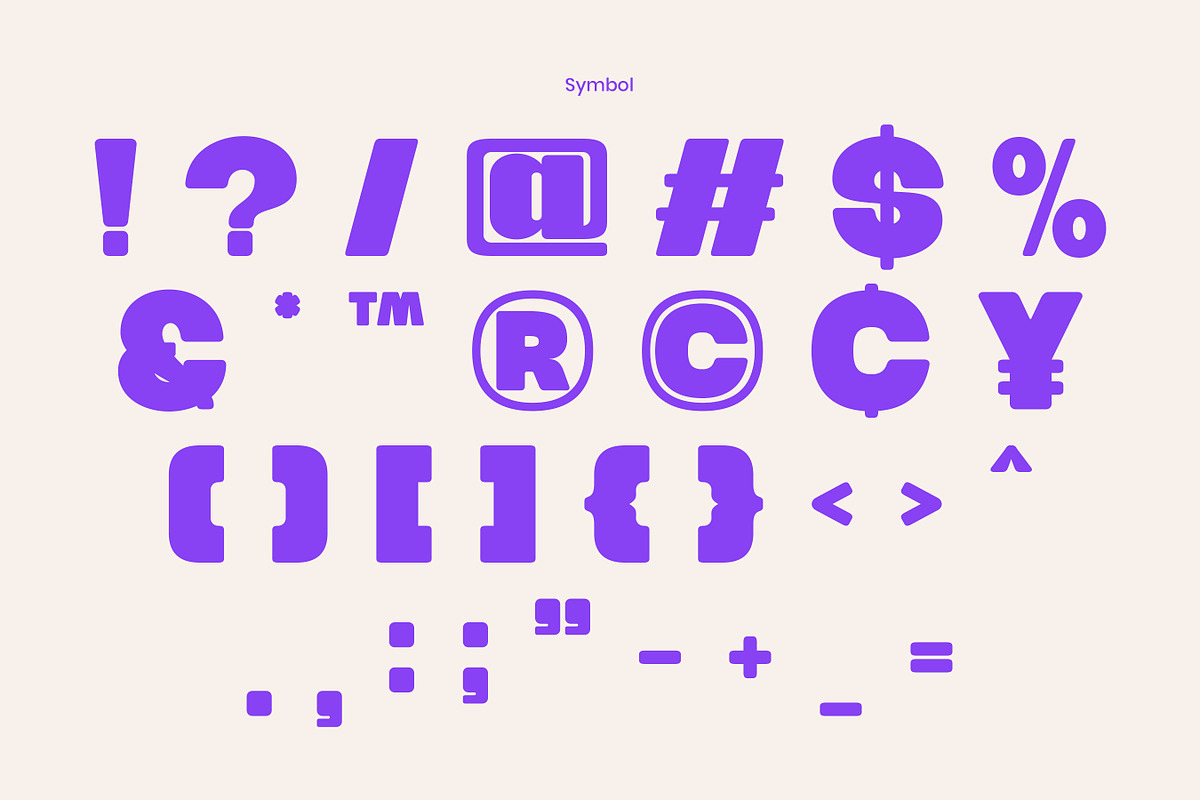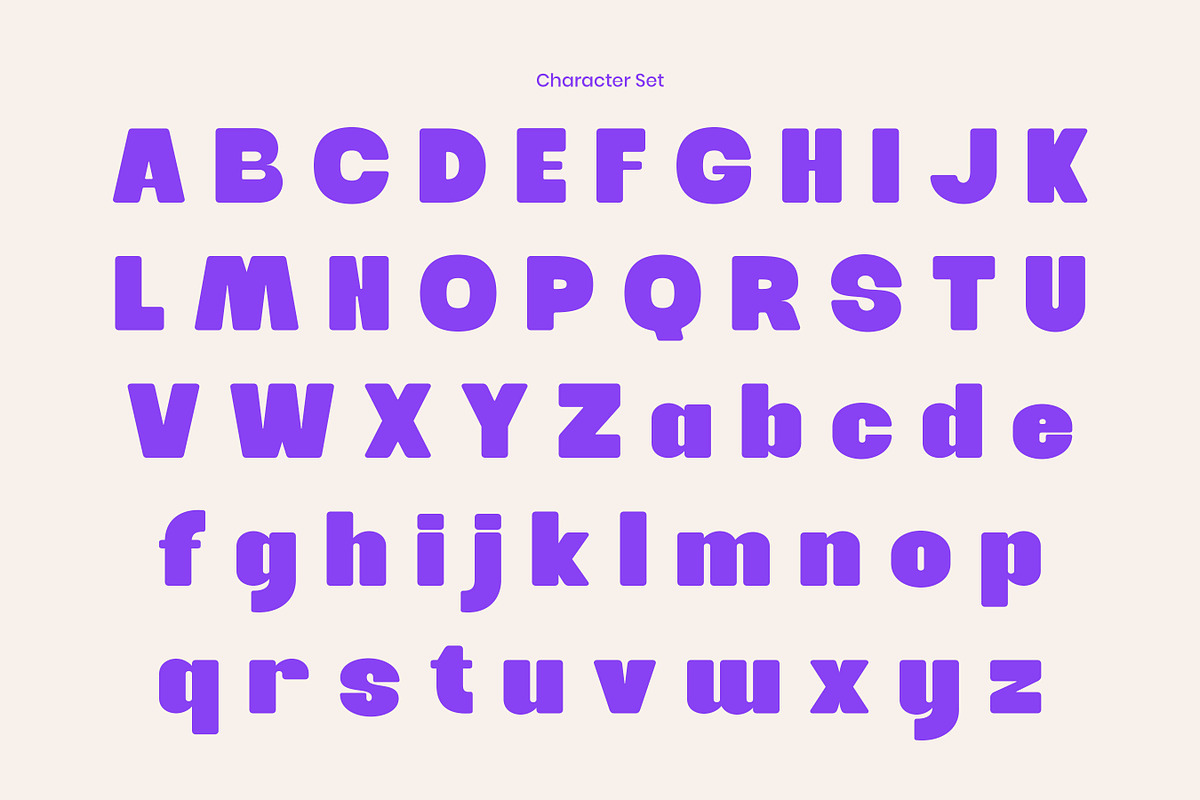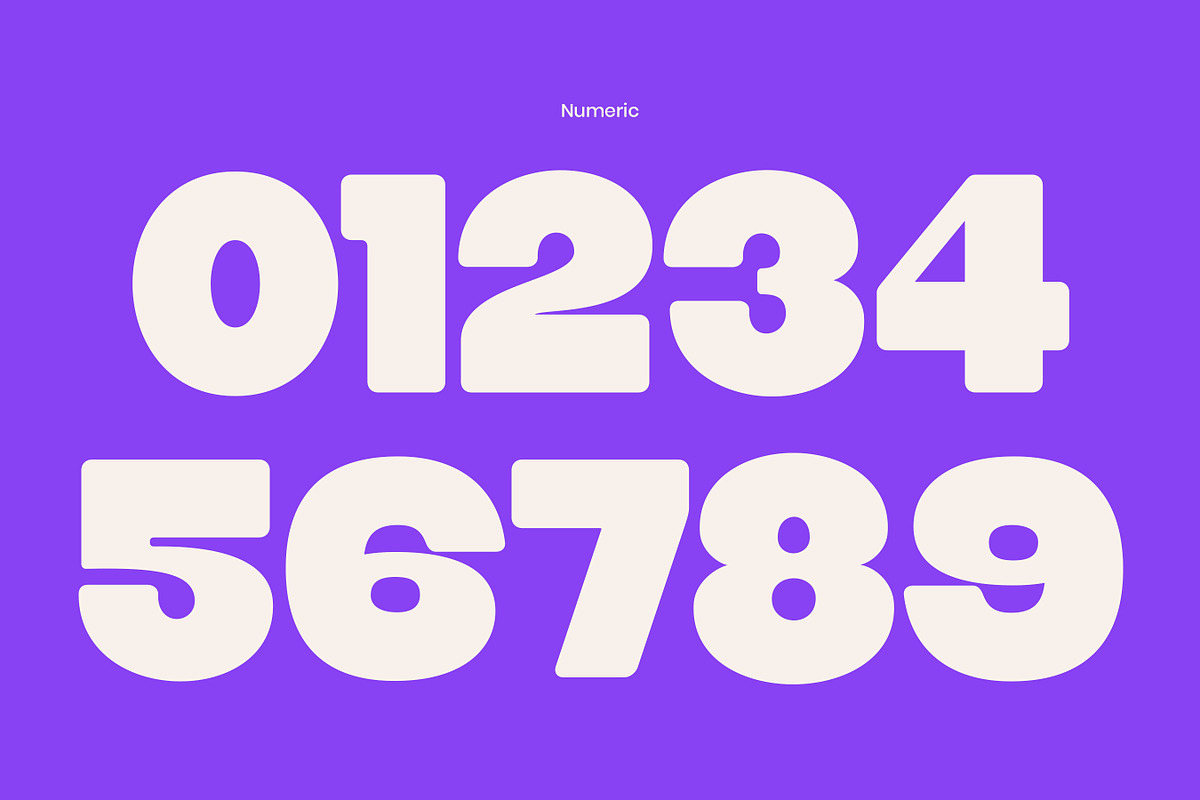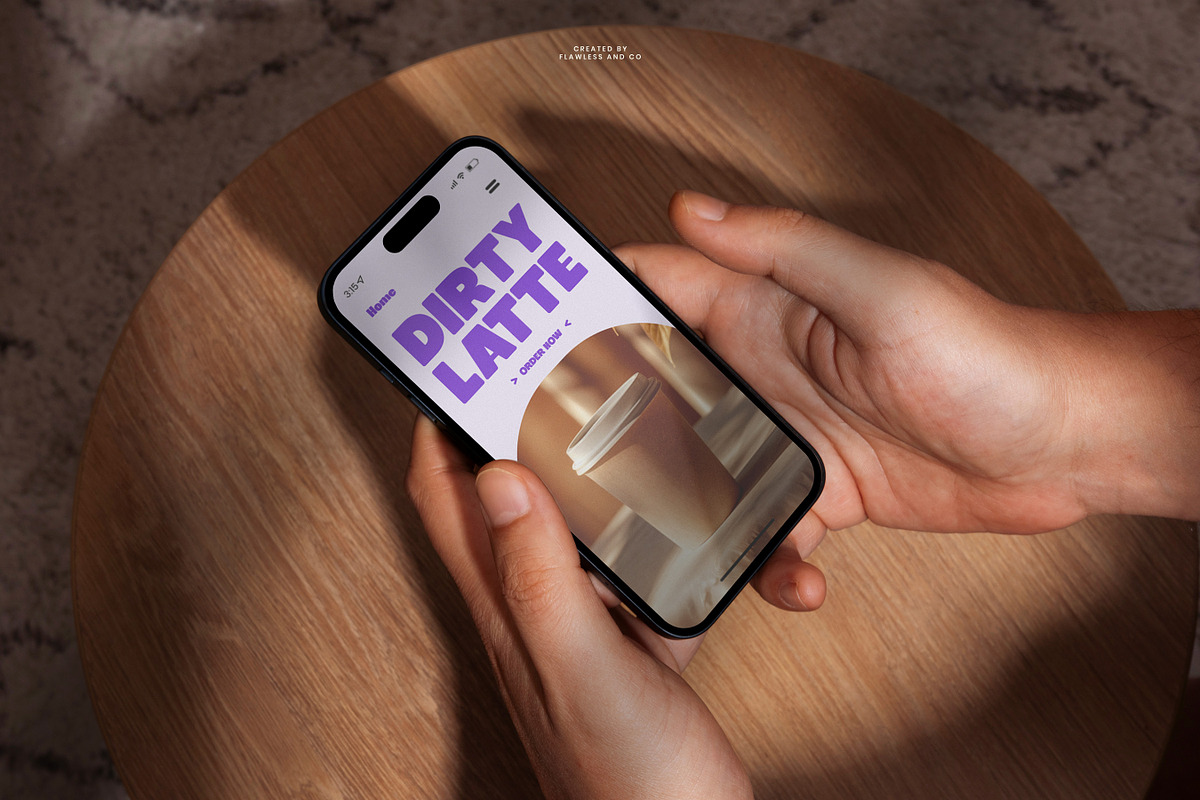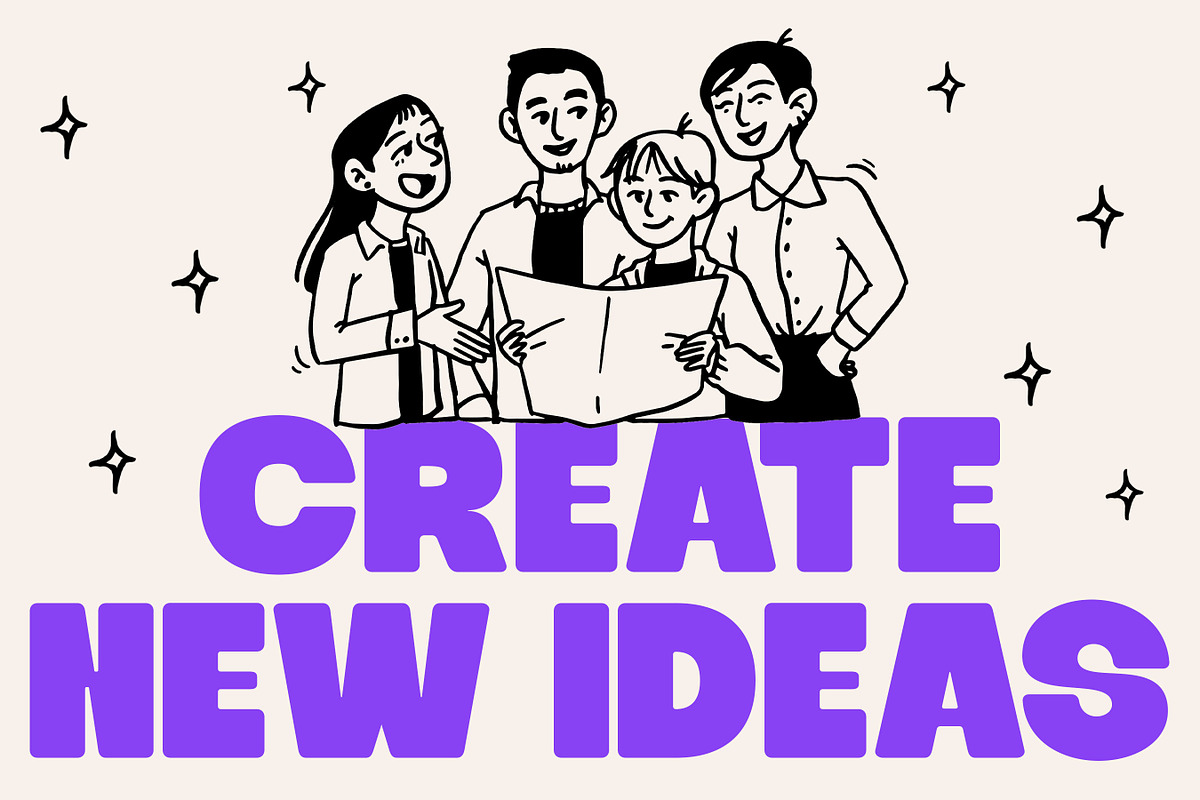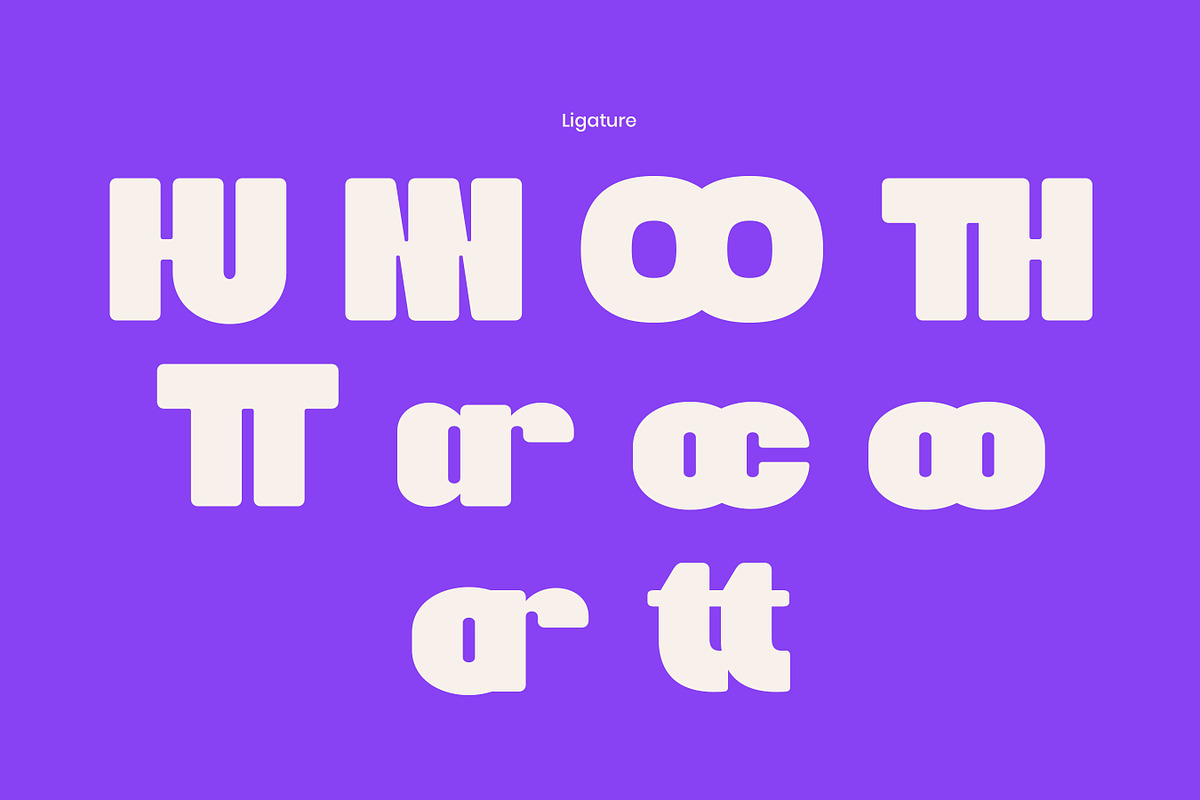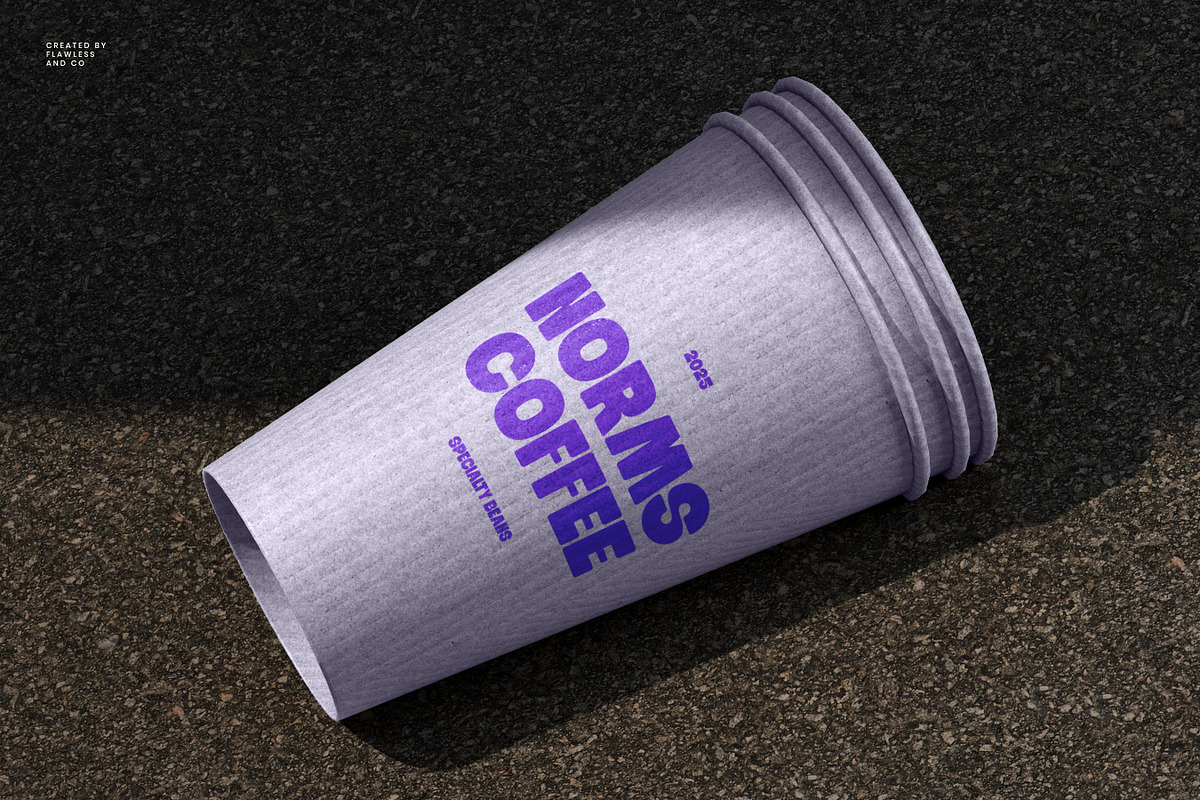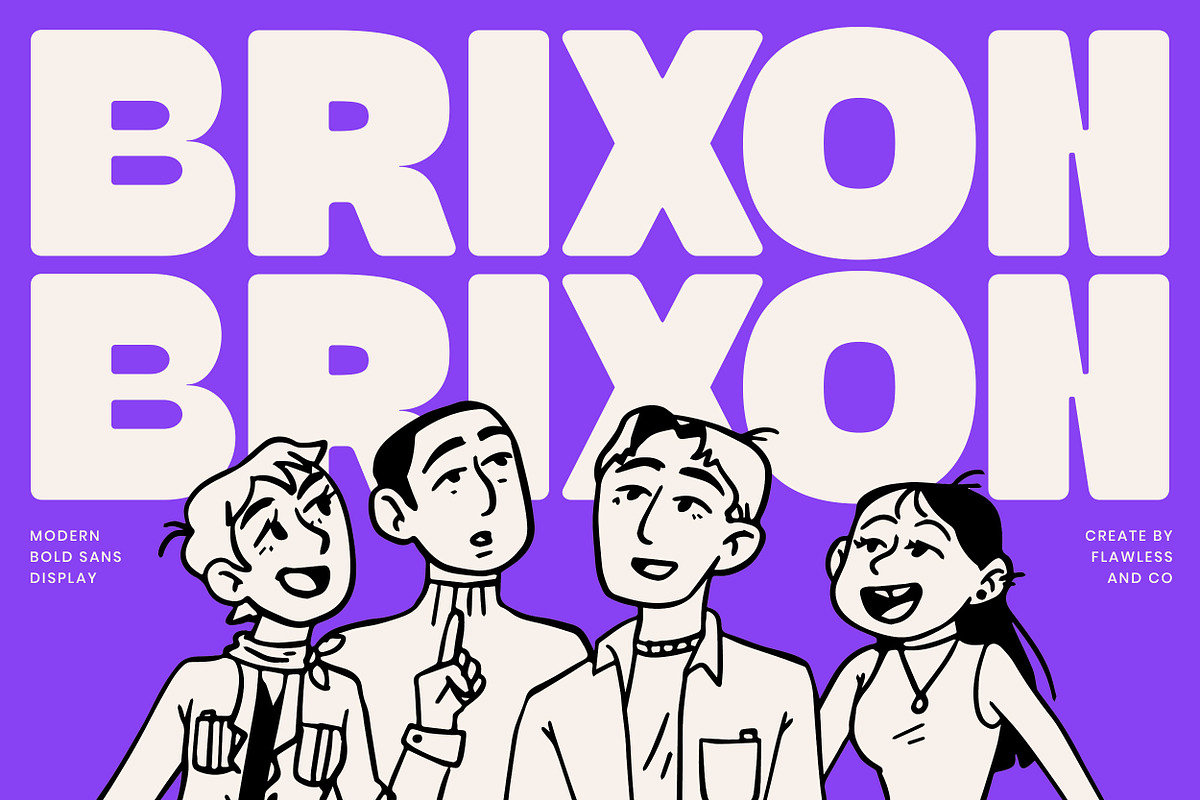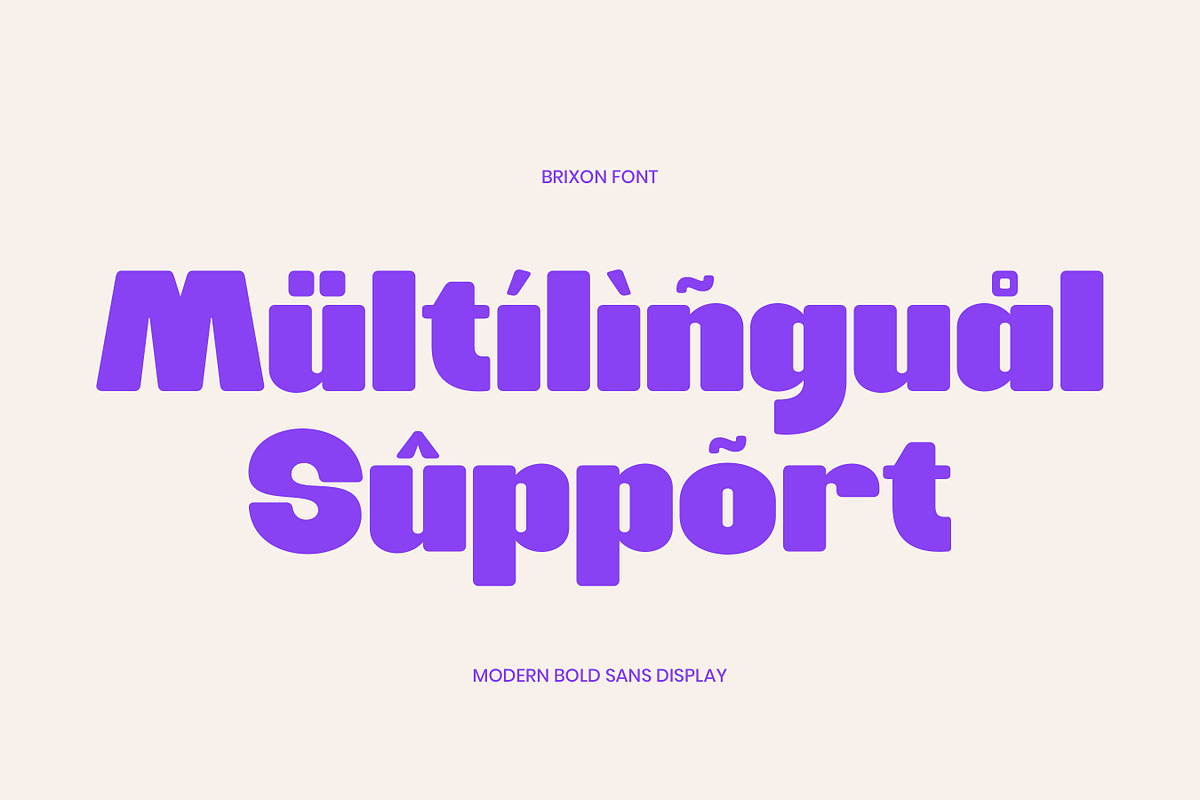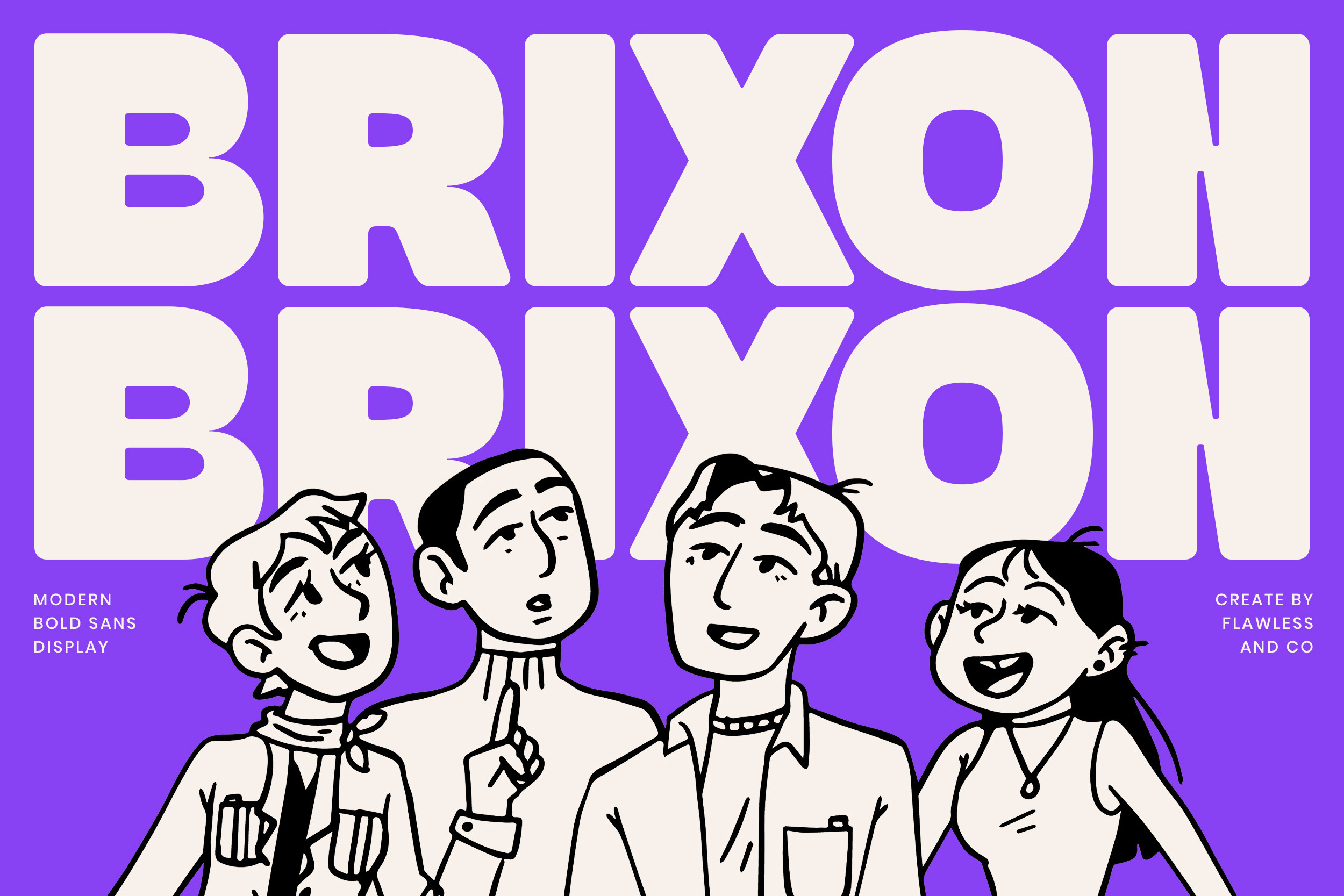
Brixon - Bold Sans Serif Font
Brixon is a bold sans serif display font designed to make an instant impact. With its strong shapes, confident proportions, and modern character, Brixon delivers powerful visual energy that stands out in any design. This font is built for bold communication—clean, expressive, and highly readable even at large sizes.
Who Should Use Brixon?
Brixon is perfect for designers and creators who want their work to stand out with bold, modern energy. This font is ideal for graphic designers, brand designers, and content creators who work on eye-catching visuals and strong visual identities.
Suitable For:
- Branding & Logo Design
- Posters & Headlines
- Social Media Graphics
- Advertising & Marketing Materials
- Merchandise & Apparel
- Packaging Design
- Editorial & Display Text
- Creative and Modern Visual Projects